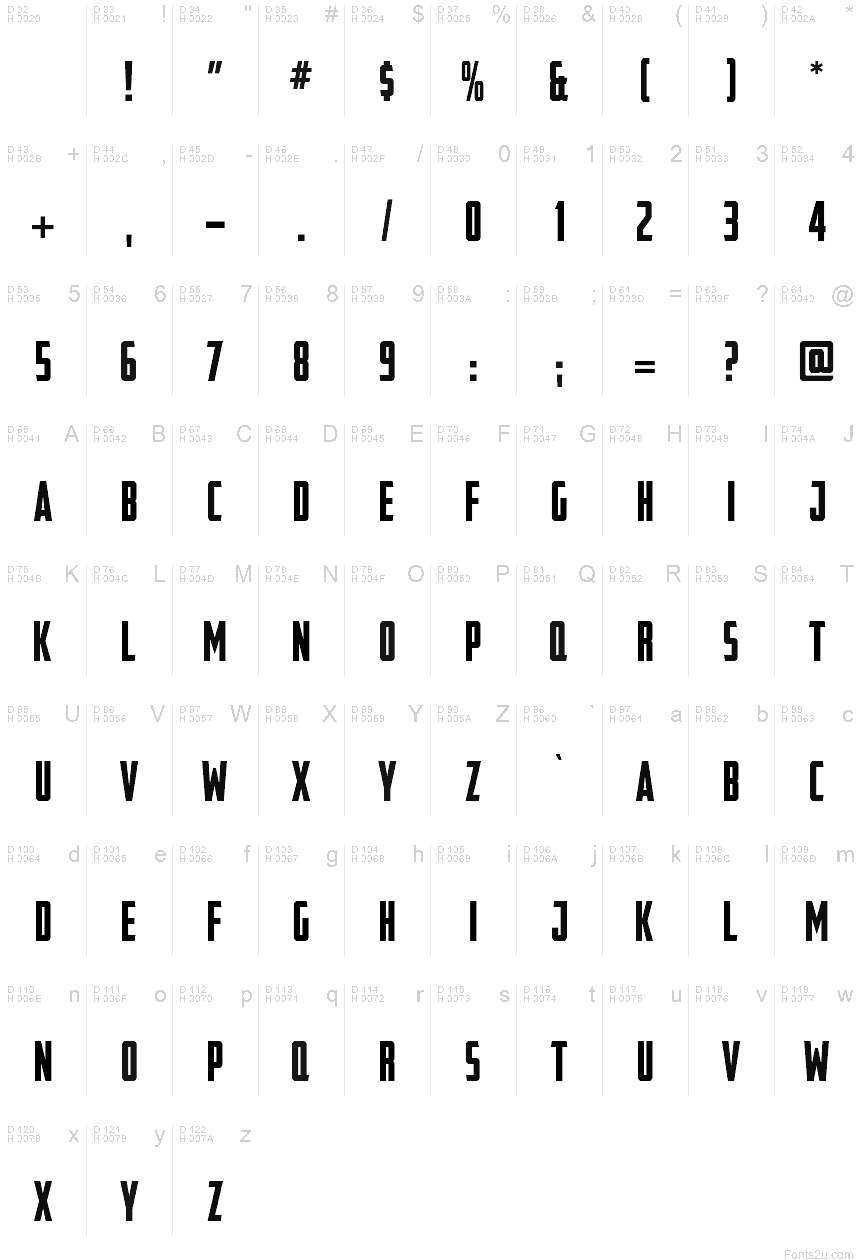
Out Of My League Regular
A narrow gaspipe typeface. Both retro and modern.
Out Of My League is a font by HENRIavecunK, designed by HENRIavecunK in 2018.